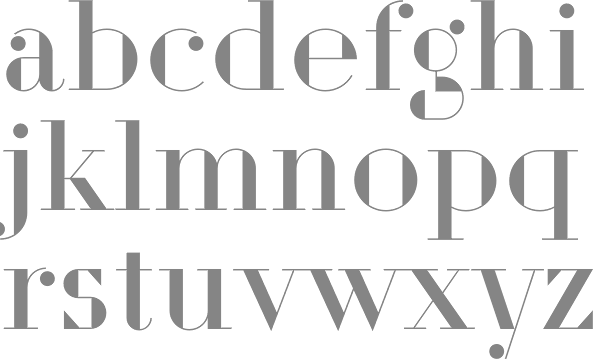
Modern style [Bodoni, Didot, Walbaum, Thorowgood, Computer Modern, etc.]
[Ratio Modern (2011) by Canada Type revives F.W. Kleukens's Ratio Latein face from 1923]
• Arnhem
• Minion
• (31) Myriad
• Rotis
• Eurostile
• Scala
• Syntax
• Joanna
• Fleischmann
• Palatino
• Baskerville
• Fedra
• (41) Gotham
• Lexicon
• Hands
• Metro
• Didot
• Formata
• Caslon
• Cooper Black
• Peignot
• Bell Gothic
• (51) Antique Olive
• Wilhelm Klingspor Gotisch
• Info
• Dax
• Proforma
• Today Sans
• Prokyon
• Trade Gothic
• Swift
• Copperplate Gothic
• (61) Blur
• Base
• Bell Centennial
• News Gothic
• Avenir
• Bernhard Modern
• Amplitude
• Trixie
• Quadraat
• Neutraface
• (71) Nobel
• Industria, Insignia, Arcadia
• Bickham Script
• Bank Gothic
• Corporate ASE
• Fago
• Trajan
• Kabel
• House Gothic 23
• Kosmik
• (81) Caecilia
• Mrs Eaves
• Corpid
• Miller
• Souvenir
• Instant Types
• Clarendon
• Triplex
• Benguiat
• Zapf Renaissance
• (91) Filosofia
• Chalet
• Quay Sans
• Cézanne
• Reporter
• Legacy
• Agenda
• Bello
• Dalliance
• Mistral
100types
[Ben Archer]
Educational and reference site run by Ben Archer, a designer, educator and type enthusiast located in England (who was in Auckland, New Zealnd, before that). Glossary. Timeline. Type categories. Paul Shaw's list of the 100 most significant typefaces of all times were recategorized by Archer:
• Religious/Devotional: Gutenbergs B-42 type, Gebetbuch type, Wolfgang Hoppyl's Textura, Breitkopf Fraktur, Ehrhard Ratdolt's Rotunda, Hammer Uncial, Zapf Chancery, Peter Jessenschrift, Cancellaresca Bastarda, Poetica.
• Book Publishing&General Purpose Text Setting: Nicolas Jenson's roman, Francesco Griffo's italic, Claude Garamond's roman, Firmin Didot's roman, Cheltenham family, Aldus Manutius' roman, William Caslon's roman, Pierre-Simon Fournier's italic, Ludovico Arrighi da Vicenza's italic, Johann Michael Fleischmann's roman, ATF Garamond, Giambattista Bodoni's roman, Nicolas Kis' roman, Minion multiple master, Unger Fraktur, John Baskerville's roman, Lucida, Optima, Bauer Bodoni, Adobe Garamond, Scotch Roman, Romanée, ITC Stone family, Trinité, ITC Garamond, Sabon, ITC Novarese, Bitstream Charter, Joanna, Marconi, PMN Caecilia, Souvenir, Apollo, Melior, ITC Flora, Digi-Grotesk Series S.
• Business/Corporate: Akzidenz Grotesk, Helvetica, Univers, Syntax, Courier, Meta, Rotis, Thesis, Antique Olive.
• Newspaper Publishing: Times Roman, Bell, Clarendon, Century Old Style, Ionic, Imprint.
• Advertising and Display: Futura, Robert Thorne's fat face roman, Vincent Figgins' antique roman (Egyptian), Memphis, Fette Fraktur, Avant-Garde Gothic, Deutschschrift, Peignot, Erbar, Stadia/Insignia, Penumbra, Compacta, Bodoni 26, WTC Our Bodoni.
• Prestige and Private Press: Romain du Roi, Golden Type, Johnston's Railway Sans, Doves Type, Walker.
• Signage: William Caslon IV's sans serif, Trajan.
• Historical Script: Snell Roundhand, Robert Granjon's civilité, Excelsior Script.
• Experimental/expressive: Mistral, Beowolf, Dead History, Behrensschrift, Eckmannschrift, Neuland, Element, Remedy, Template Gothic.
• Onscreen/multimedia: Chicago, Oakland, OCR-A, Base Nine and Base Twelve, Evans and Epps Alphabet.
• Telephone Directory publishing: Bell Gothic.
110design
[Alexei Vanyashin]
Russian graphic and web design studio in Moscow, run by Alexei Vanyashin, Fedor Balashov and Kate Semenova. Alexei Vanyashin studied typography at Stroganov University under Dmitry Kirsanov from 2002-2003. He graduated in graphic design from the Institute of Design in Moscow in 2008. In 2009-2010, he worked on the Florian Diploma project at the Type and Typography course at the British Higher School of Art and Design in Moscow under Ilya Ruderman. Florian is a 9-style angular (wedge serif) text family. Florian and Geo Text won First Prize at Granshan 2010 in the Cyrillic text typeface category. Alexei designed the curlified Bodonito Display (2009), Eurotesque, Wire (2009, monoline sans), and ModL (2009). Schmale Antiqua (2010) is a very thin Latin and Cyrillic didone face that revives a 19th century typeface widely used for setting book titles. Behance link.
Andreu Balius Planelles
Born in Barcelona in 1962, Andreu Balius studied Sociology in the Universidad Autonoma de Barcelona, and graphic design at the IDEP School. He founded Garcia Fonts&Co in Barcelona in 1993 to show his experimental designs. He cofounded Typerware in 1996 with Joancarles P. Casasín. Typerware existed until 2001 and was based in Santa Maria de Martorelles, a village near Barcelona. He cofounded Type Republic (see also here), and ran Andreu Balius (tipo)graphic design. He is presently an associate professor at Pompeu Fabra University in Barcelona.